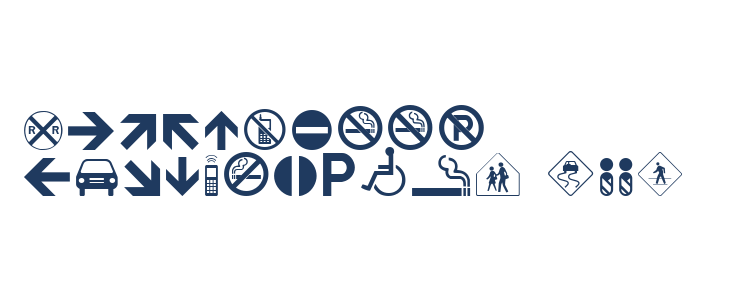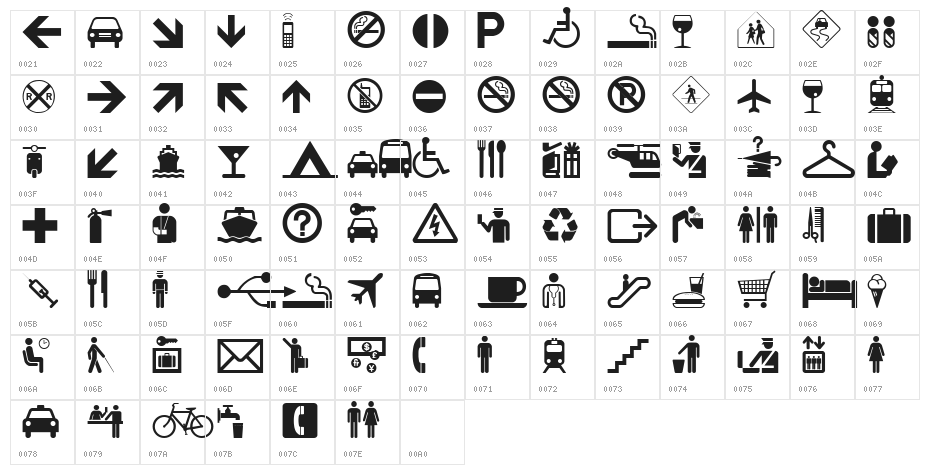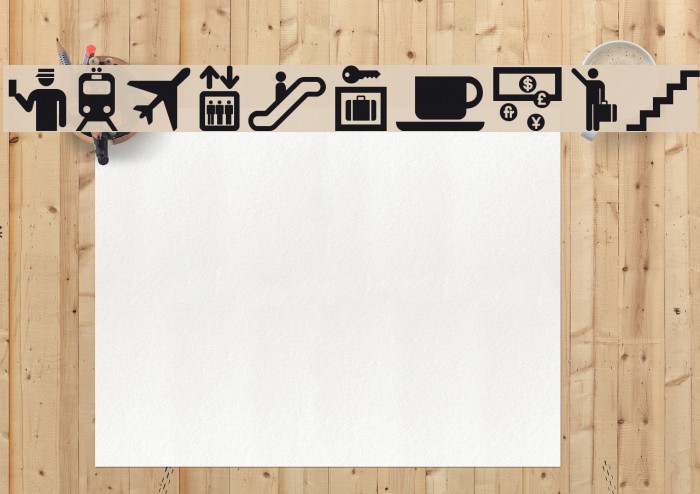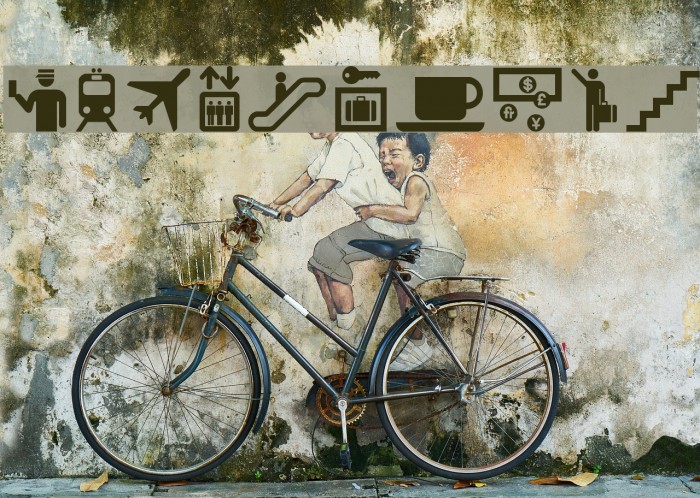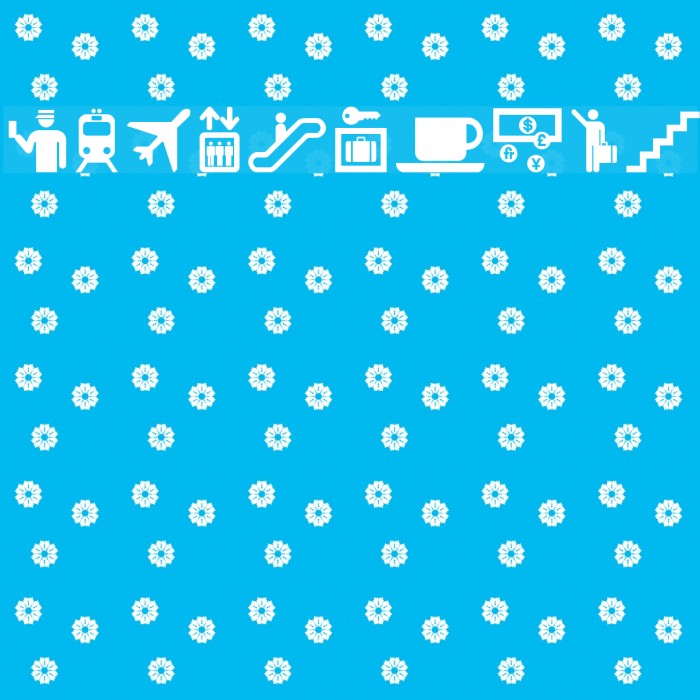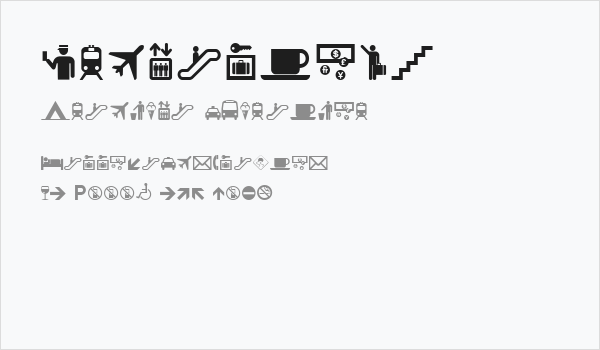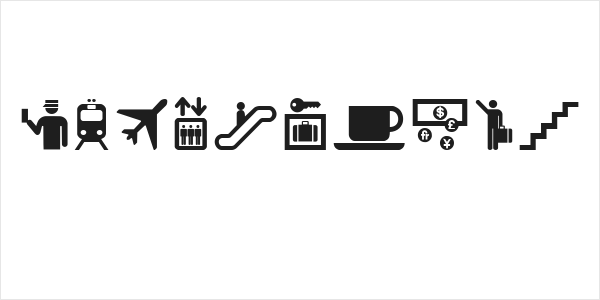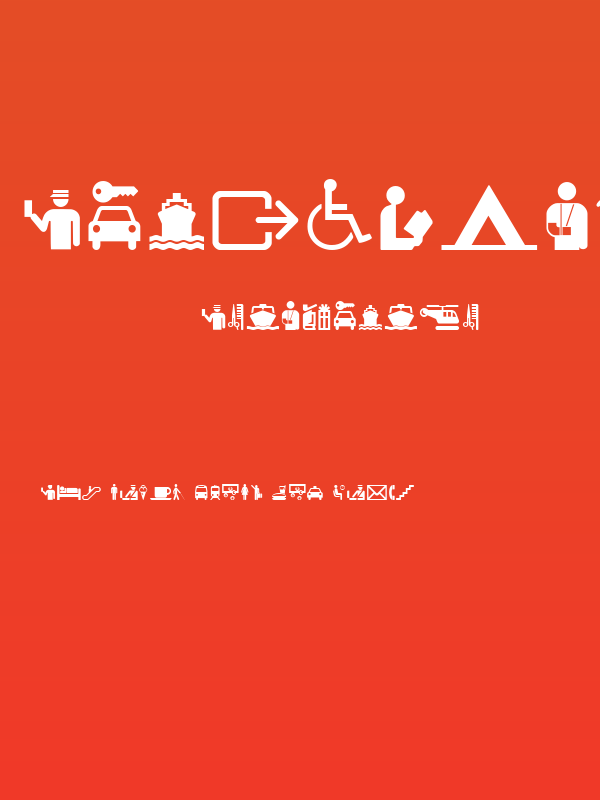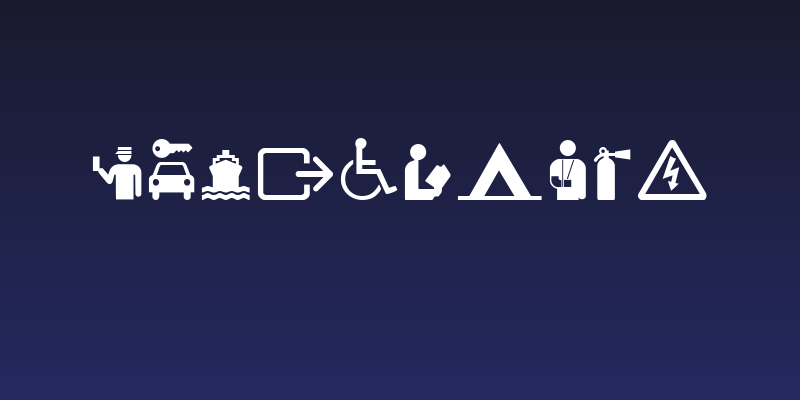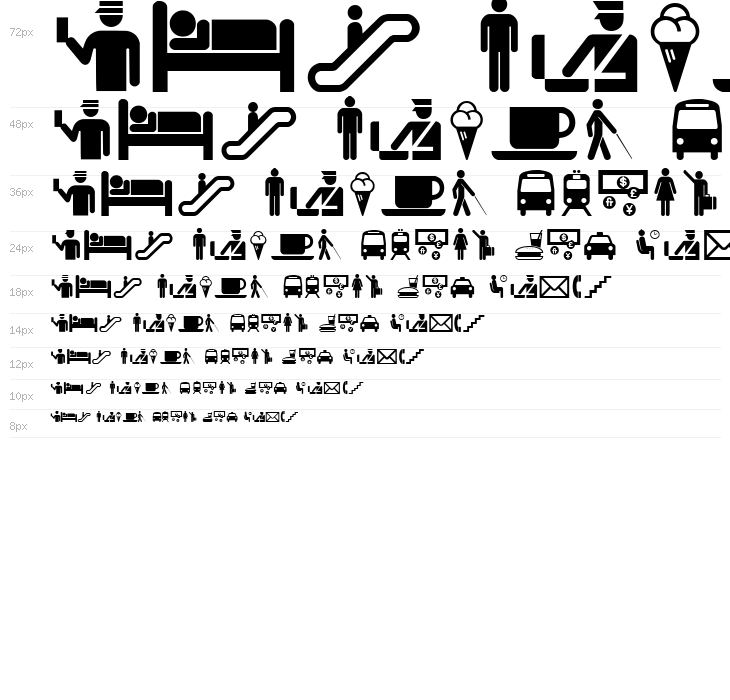
Travelcons Font
Travelcons Description
This collection of icons is designed to convey a wide range of travel-related concepts and services. Each icon is crafted with simplicity and clarity in mind, making them easily recognizable at a glance. The icons include representations of transportation modes, amenities, and services such as buses, airplanes, hotels, dining, and restrooms. The style is clean and modern, utilizing bold lines and minimalistic shapes to ensure visibility and understanding. These icons are ideal for use in travel guides, maps, signage, and digital applications where quick comprehension is essential. The consistent design language across the set ensures a cohesive look when used together.
| Use Case | Signage, Digital applications, Maps |
| Proposed Projects | Ideal for travel guides, maps, signage, and digital applications requiring clear iconography. |